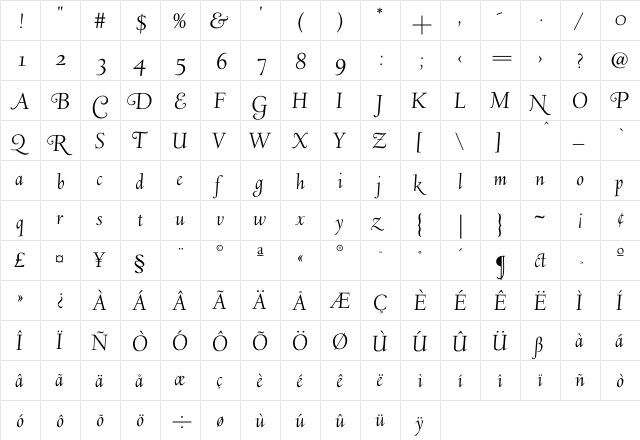
Deepdene HW-Italic
Design Context for Deepdene Typeface
Deepdene offers clean, dependable letterforms without strong stylistic allegiance, making it a practical choice for designers who need flexibility. The dynamic lean of this cut emphasises speed and emphasis in any layout.
Pro Tip: Try Deepdene for annotation and caption copy alongside an upright companion — the contrast in angle creates a dynamic but ordered typographic system.